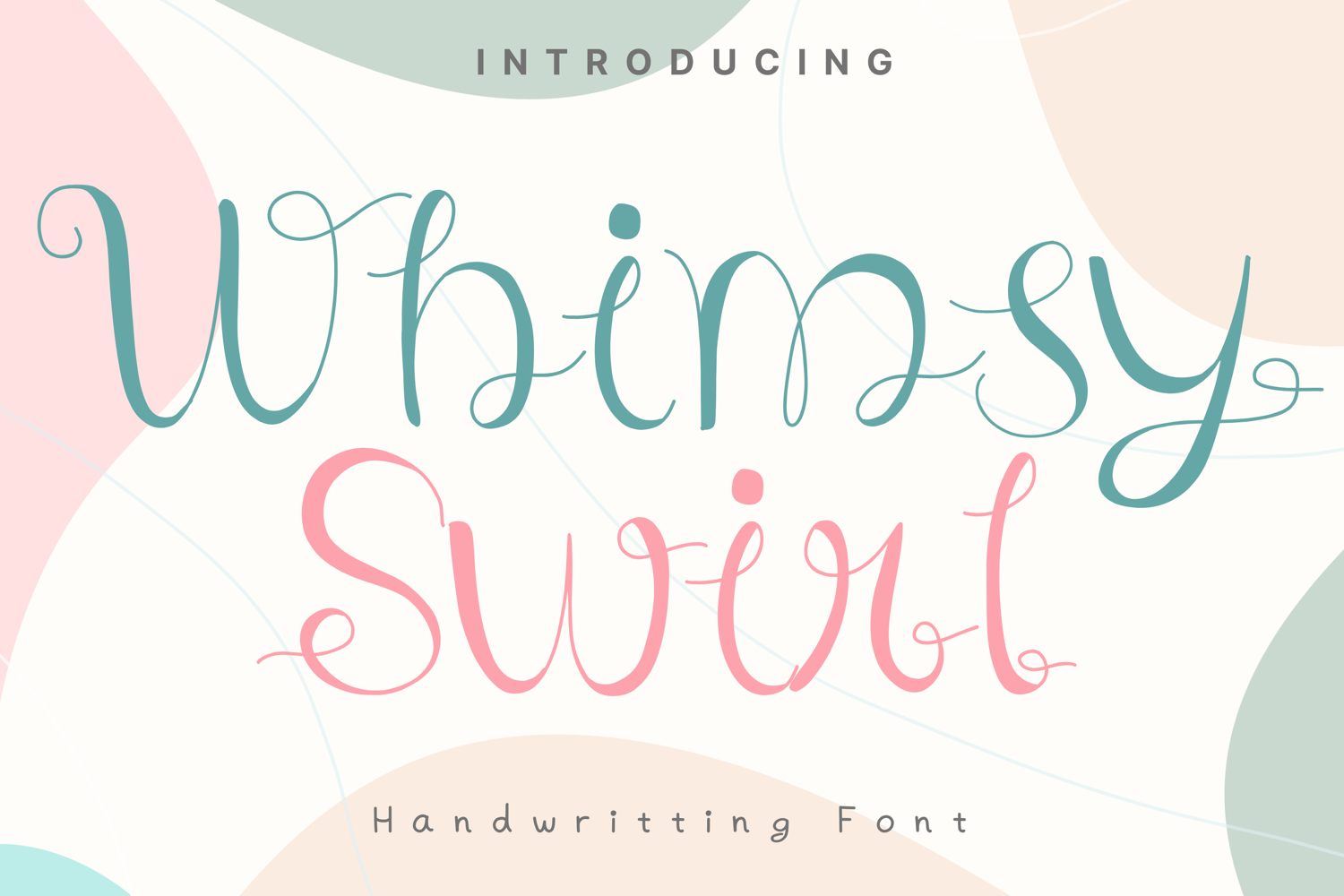
Whimsy Swirl Style
WhimsySwirl
Whimsy Swirl is a playful and elegant script font featuring unique curly swirls and loops on each letterform. Its decorative flow makes it ideal for invitations, greeting cards, logos, branding, or any creative project that needs a touch of charm and sophistication. The whimsical design combines legibility with artistic flair, giving your text a lively and enchanting look.